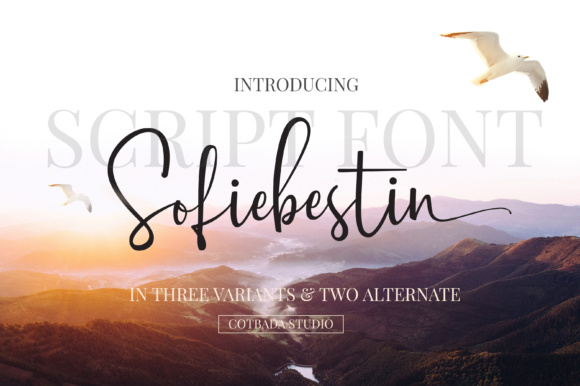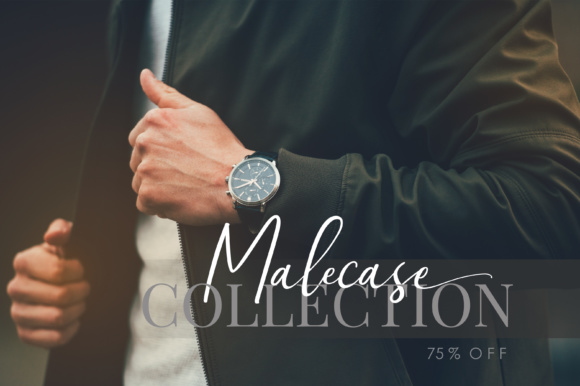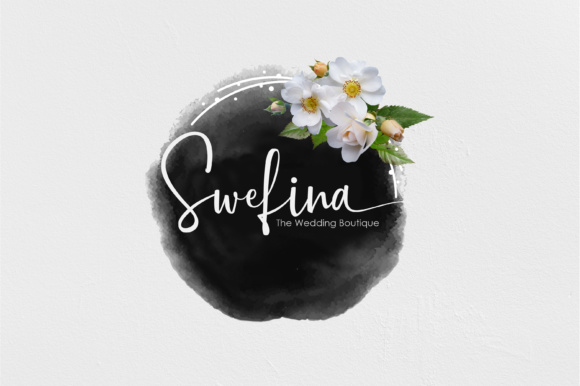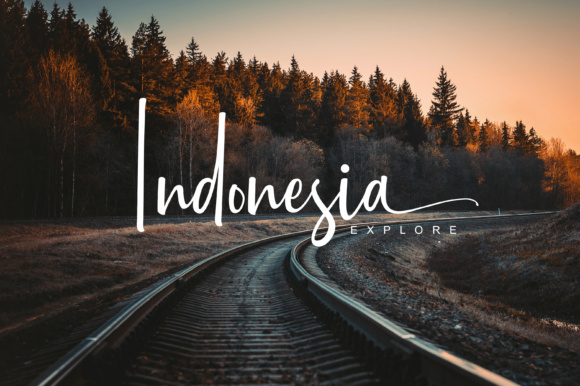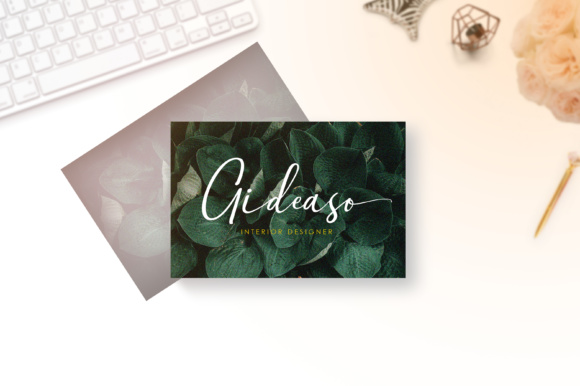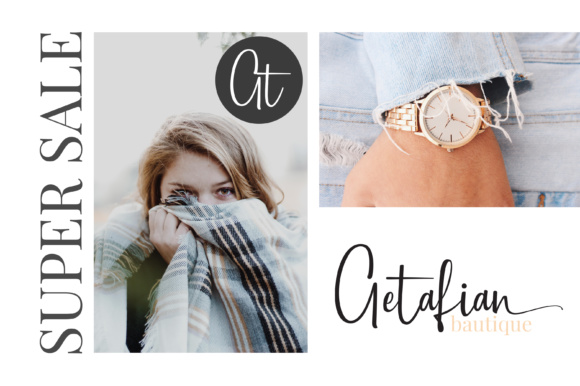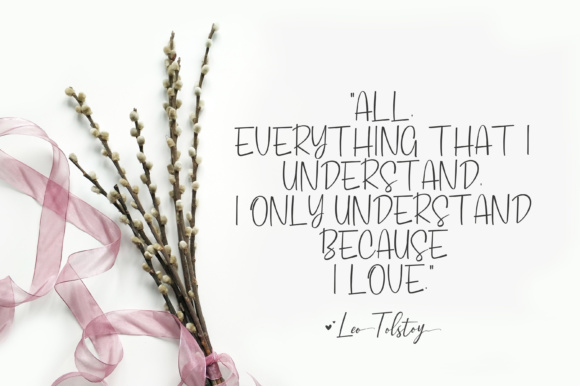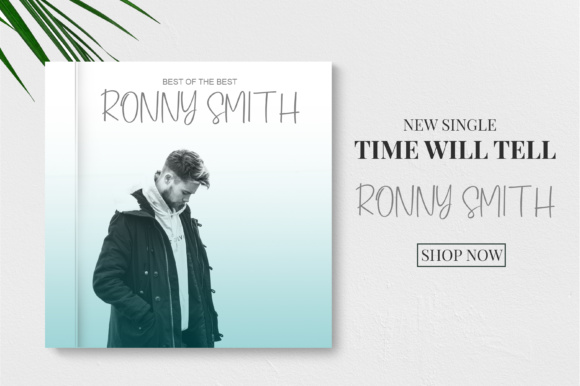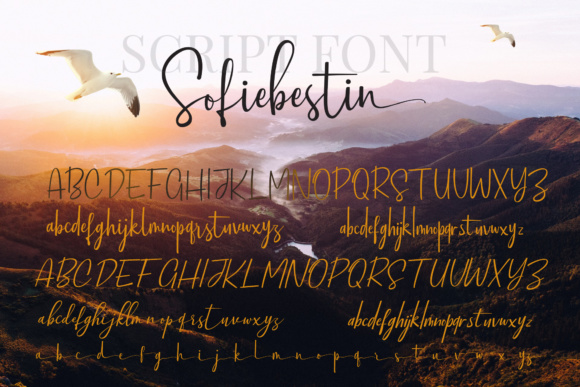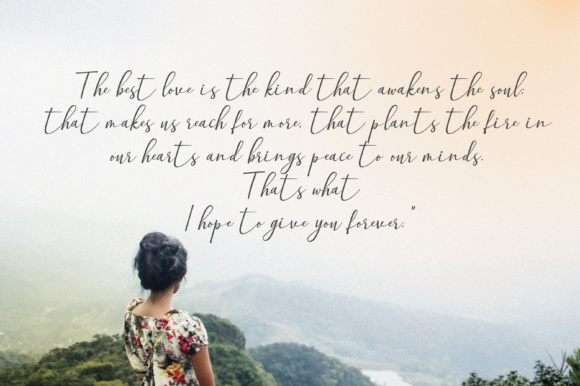
HomeScript FontsSofiebestin Script Font Script Fonts Sofiebestin Script Font FacebookXPinterestWhatsApp Sofiebestin Script Font Poster 2 Sofiebestin Script Font Poster 3 Sofiebestin Script Font Poster 4 Sofiebestin Script Font Poster 5 Sofiebestin Script Font Poster 6 Sofiebestin Script Font Poster 7 Sofiebestin Script Font Poster 8 Sofiebestin Script Font Poster 9 Sofiebestin Script Font Poster 10 About Sofiebestin Script Font A unique, handwritten font with a modern look & feel. It’s completely hand-styled, and digitally perfected. DOWNLOAD ON CREATIVE FABRICAThis font is sold and delivered by Creative Fabrica. Font Canyon may earn a commission if you buy through this link. People also explored Puppy Love Brush (LIMITED OFFER) Calligraphia Latina Whitey Script Font Honey Cute Font Hanzone Font Sinofluck Brianka Samuel Font Castle Wedding Font Korona Font 338 0 TagsSofiebestin Script Font Previous articleYumaidia FontNext articleQamilla Font LEAVE A REPLY Cancel reply Comment: Please enter your comment! Name:* Please enter your name here Email:* You have entered an incorrect email address! Please enter your email address here Website: Save my name, email, and website in this browser for the next time I comment. Personal Use Free Planet Benson 2 Personal Use Free Read more about this font Love Heart Personal Use Free Read more about this font Thruster Personal Use Free Read more about this font Osaka Personal Use Free Read more about this font BLOG Top 10 Handwritten Fonts That Elevate Your Designs Top 10 Handwritten Fonts That Will Elevate Your Designs Handwritten fonts bring a warm, personal touch to every creative project. Whether you're designing logos, invitations,... Transform Your Website: Elevate Your Typography with 7 Best Web Font Generators Free vs Paid Fonts: Why Investing in Premium Fonts Is Worth It 5 Fonts That Will Dominate Design Trends in 2026